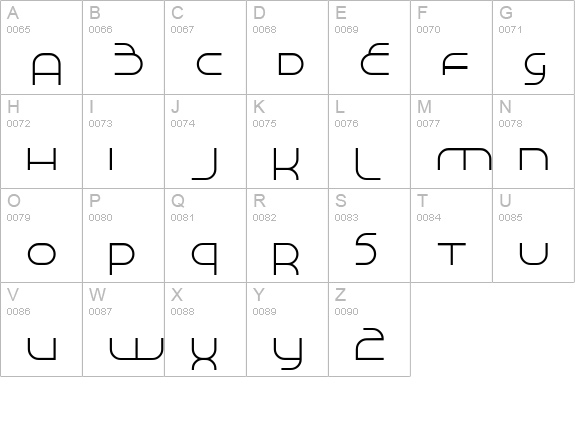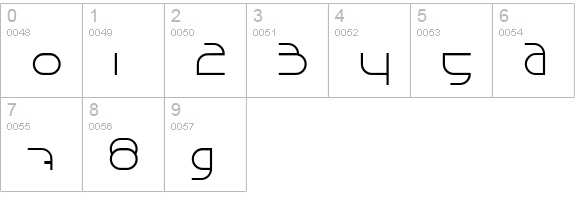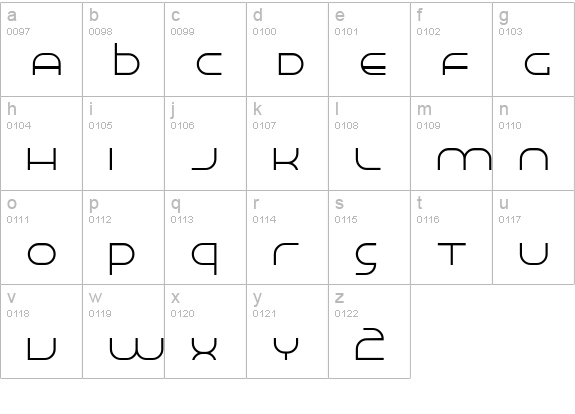
Made in Space Font Details
Made in Space is a stunning font that truly embodies the spirit of creativity and innovation. With its clean lines and futuristic design, this font is perfect for anyone looking to make a bold statement with their typography. Whether you're designing a logo, creating eye-catching headlines, or even just sprucing up your personal projects, Made in Space is sure to turn heads. But what sets Made in Space apart from other fonts on the market is its accessibility. This font is not only visually striking, but it is also free to download at FontsMarket.com. That's right, you can get your hands on this incredible font without having to spend a dime. So why wait? Embrace the beauty of Made in Space and elevate your designs to new heights. Made in Space is a versatile font that can be used in a variety of settings. Its sleek and modern aesthetic makes it perfect for futuristic designs, while its bold and strong presence ensures that your message will be heard loud and clear. Whether you're designing for print or web, Made in Space will give your projects a professional and polished look. So don't miss out on this amazing opportunity to enhance your designs with the captivating allure of Made in Space. Download it for free today at FontsMarket.com and let your creativity take flight.